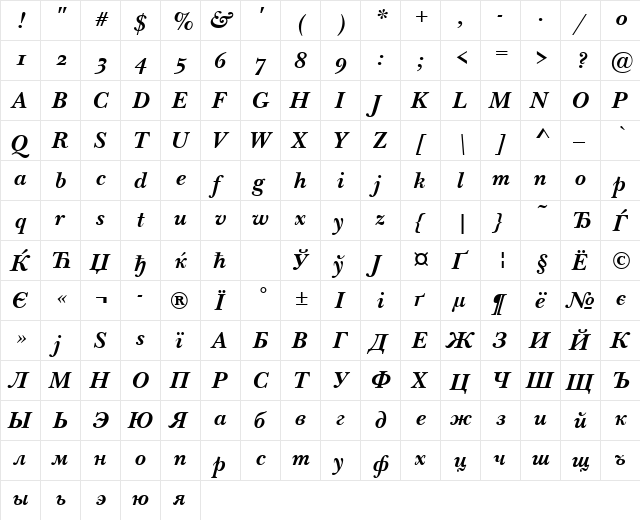
NewBaskervilleODTT BoldItalic Font Preview
Design Context for NewBaskervilleODTT Typeface
NewBaskervilleODTT is a composed and adaptable typeface that performs quietly and consistently across a wide range of design contexts. Its italic angle brings a sense of urgency and motion to the letterforms. The heavy weight commands attention and anchors typographic hierarchies.